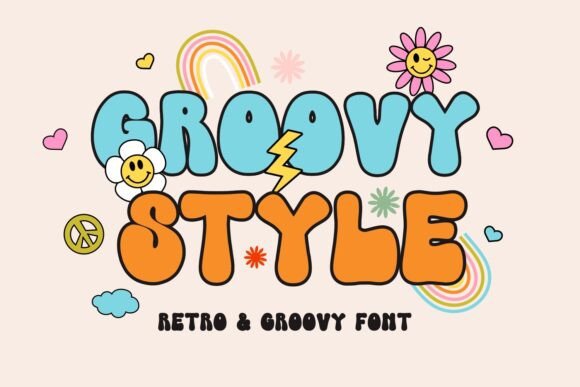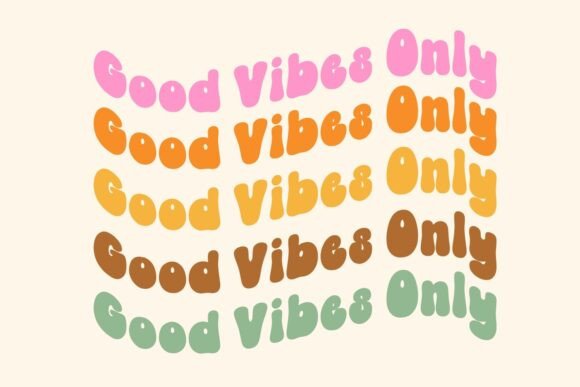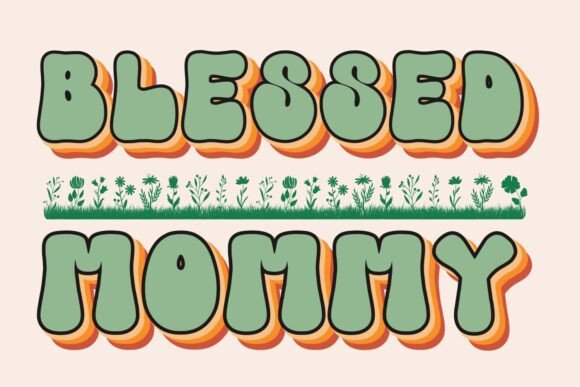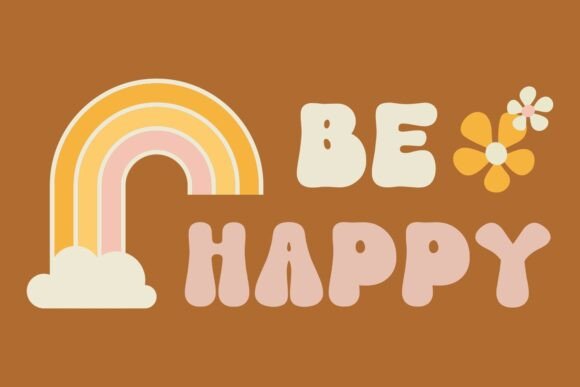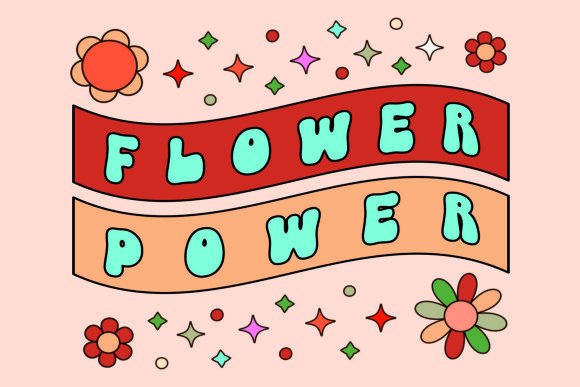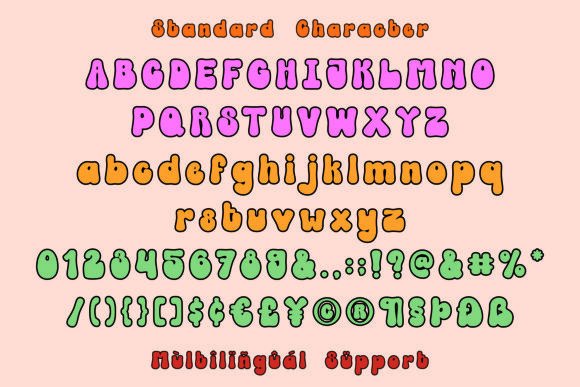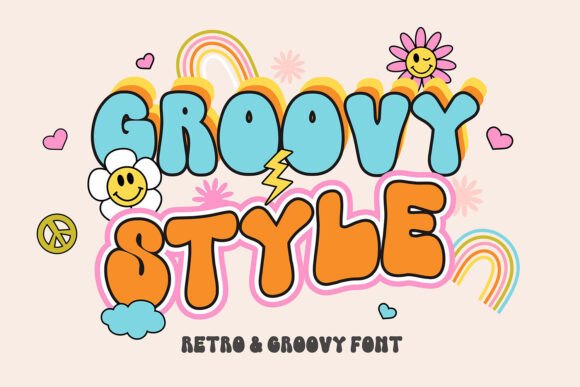
Introducing Groovy Style Font: A Retro Revival with a Modern Twist
Are you ready to take a trip down memory lane and infuse your designs with a blast from the past? Look no further than the “Groovy Style” font, a fun and cute display font that’s perfect for capturing the essence of the ’60s and ’70s. With its bold and playful energy, this font is ideal for designers and crafters looking to add a touch of nostalgia and charm to their projects.
The Groovy Style Font: A Designer’s Dream
Groovy Style font is a carefully crafted typeface that embodies the spirit of the retro era. Its unique design combines classic elements with a modern twist, making it perfect for a wide range of applications. Whether you’re creating stickers, retro banners, or food-related projects like logos, packaging, posters, and banners, this font is sure to bring a smile to your face and a touch of personality to your designs.
Key Features of Groovy Style Font
- Retro-inspired design: Groovy Style font is heavily influenced by the iconic typography of the ’60s and ’70s, with bold lines, curvaceous shapes, and a dash of playfulness.
- Modern twist: While paying homage to the past, this font also incorporates modern elements to ensure it remains fresh and relevant.
- Fun and cute: Groovy Style font is all about having fun and embracing your creative side. Its lighthearted and carefree vibe makes it perfect for projects that require a playful touch.
- Highly versatile: From stickers and banners to logos and packaging, this font can be used across a wide range of applications and mediums.
Groovy Style font is a dream come true for designers and crafters looking to add a touch of personality to their projects. Whether you’re a professional designer or a DIY enthusiast, this font offers endless possibilities for creative expression. Here are just a few ideas to get you started:
- Stickers and labels: Add a fun and playful touch to your stickers and labels with Groovy Style font.
- Retro banners: Create eye-catching banners that evoke the spirit of the ’60s and ’70s.
- Food-related projects: Use Groovy Style font to create mouth-watering logos, packaging, posters, and banners for food-related businesses.
- Social media graphics: Add a touch of personality to your social media graphics and make them stand out from the crowd.
Tips for Using Groovy Style Font
To get the most out of Groovy Style font, here are a few tips to keep in mind:
- Experiment with colors: Groovy Style font looks great in bold, bright colors. Don’t be afraid to experiment and find the perfect color scheme for your project.
- Play with textures: Add an extra layer of depth to your design by incorporating textures and patterns.
- Mix and match: Combine Groovy Style font with other fonts and design elements to create a unique and eye-catching look.
| Font Name | Groovy Style Font |
| Author | Mozatype |
Groovy Style font is a fantastic addition to any designer’s toolkit. With its retro-inspired design, modern twist, and fun and cute vibe, this font is perfect for capturing the essence of the ’60s and ’70s. Whether you’re a professional designer or a DIY enthusiast, Groovy Style font offers endless possibilities for creative expression. So why not give it a try and see how you can use it to add a touch of nostalgia and charm to your designs?